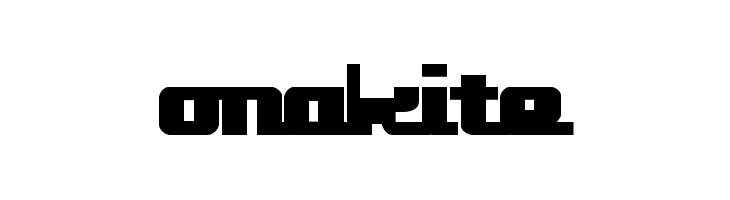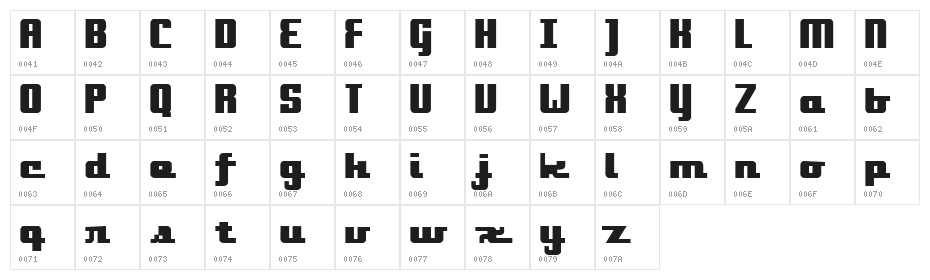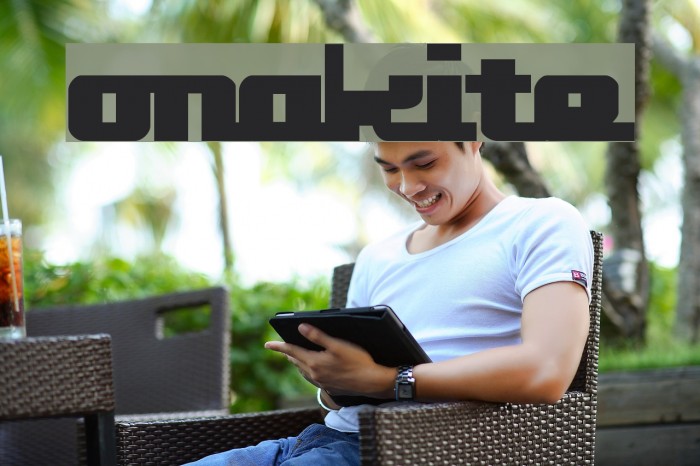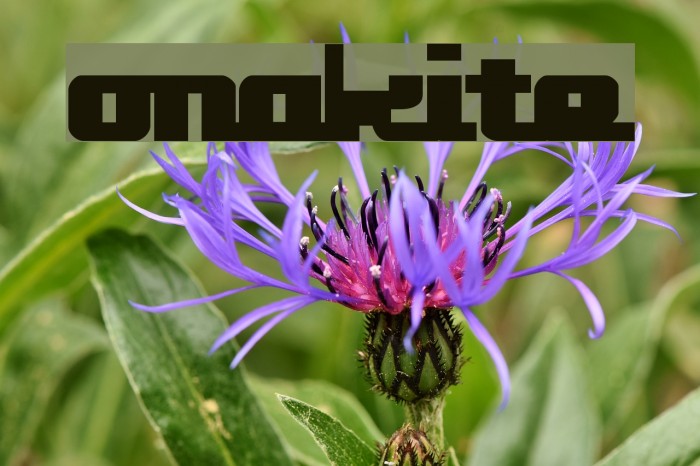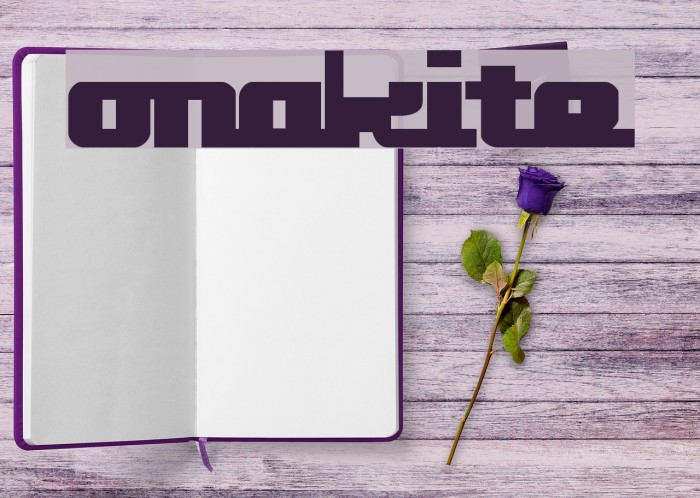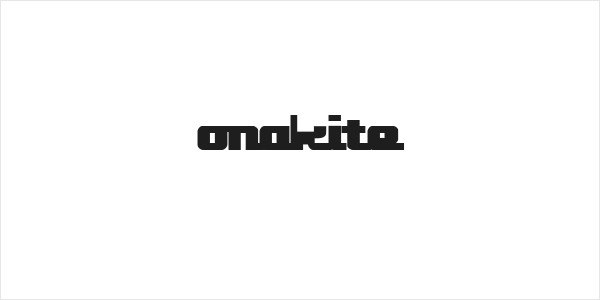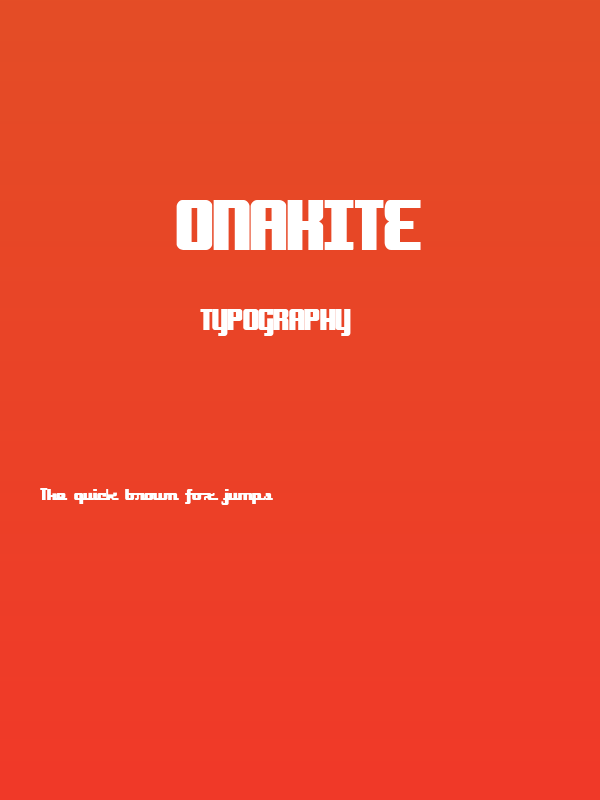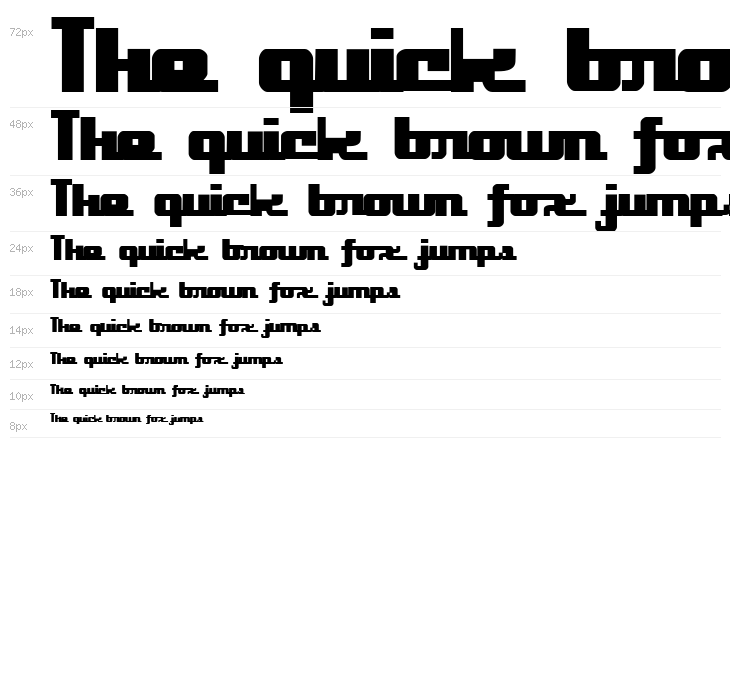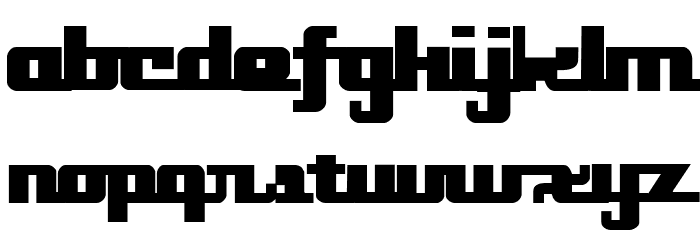
onakite Font
onakite Description
This font features a bold, geometric design with a strong presence. The uppercase letters are characterized by their blocky, angular shapes, creating a sense of stability and strength. The lowercase letters maintain a similar structure but with a slightly more fluid connection between strokes, offering a subtle contrast to the uppercase. The numbers and special characters follow the same bold and structured aesthetic, ensuring consistency across all elements. The overall appearance is modern and assertive, making it suitable for impactful designs.